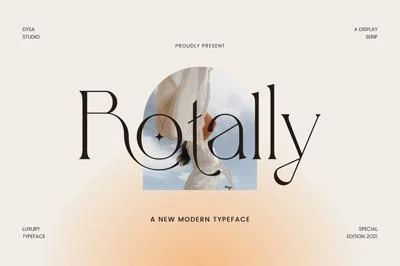
Rotally Font
The Rotally Font is perfect for modern tech company logos, innovative software branding, digital transformation presentations, contemporary web design, startup marketing materials, progressive business communications, cutting-edge product packaging, futuristic user interfaces, and next-generation corporate identity projects.
What makes the Rotally Font so exciting is its dynamic rotational energy that perfectly captures the forward momentum and innovative spirit of modern digital transformation. This sophisticated typeface embodies the cyclical progress and continuous evolution that defines contemporary business innovation, creating an immediate impression of movement and technological advancement. The font's rotational character communicates the dynamic adaptation and progressive thinking that modern businesses need to establish credibility with forward-thinking customers who demand innovative solutions and cutting-edge digital experiences.
The Rotally Font family includes Regular weight featuring complete uppercase and lowercase character sets, comprehensive numerical collections, essential punctuation marks, and dynamic symbols that maintain the progressive aesthetic throughout your innovation-focused and technology-driven design projects.
Progressive businesses and innovation-focused organizations consistently choose Rotally Font for projects that require authentic modern appeal and dynamic technological communication. This exceptional typeface excels in environments where establishing innovation leadership and progressive business thinking is crucial for attracting forward-minded customers and early technology adopters. The font's dynamic character helps communicate the adaptability and continuous improvement that innovation-focused audiences expect from established technology leaders and progressive business organizations.
The distinctive qualities of Rotally Font reflect the evolving landscape of modern business where continuous adaptation, technological integration, and progressive thinking create competitive advantages and sustainable success. Each character demonstrates the balanced motion and controlled progression that characterizes successful innovation-driven companies and technology-forward organizations. The font's proportions and spacing create perfect harmony between dynamic energy and professional stability that contemporary businesses require for effective market positioning and customer engagement.
Contemporary progressive enterprises appreciate how Rotally Font communicates innovation leadership and technological sophistication. Whether designing materials for tech startups, creating branding for digital transformation services, or developing marketing for innovative business solutions, this font delivers the forward-thinking character that distinguishes progressive organizations from traditional conservative companies. The typeface works exceptionally well for businesses emphasizing continuous improvement, technological advancement, and the dynamic appeal of modern business innovation and progressive corporate culture.
The versatility of Rotally Font extends across multiple innovation applications and progressive business marketing initiatives. Technology consultants utilize its dynamic character for transformation strategy presentations and innovation roadmap communications. Digital agencies choose it to communicate their expertise in modern business solutions and cutting-edge technology implementations. Innovation hubs rely on its progressive appearance to attract entrepreneurs seeking dynamic business environments and forward-thinking collaboration opportunities.
Digital innovation platforms benefit from Rotally Font's optimized performance across various progressive applications and modern communication channels. The font maintains its dynamic character whether displayed on innovation websites, mobile business apps, or high-resolution technology presentations. This technical excellence ensures consistent brand presentation across all progressive communication platforms and innovation engagement scenarios.
The psychological impact of Rotally Font resonates with audiences who embrace business transformation and value continuous innovation in their professional partnerships. The typeface serves as a visual promise of dynamic progress and forward momentum that helps progressive businesses build lasting relationships with customers who seek innovative solutions and cutting-edge business approaches. This connection to continuous improvement and technological advancement makes it invaluable for establishing credible innovation-focused brand identities.
Innovation marketing specialists and progressive design professionals recognize Rotally Font as an essential tool for authentic forward-thinking branding. The font captures the essence of business innovation while making progressive thinking accessible to contemporary organizations who want to communicate their commitment to continuous improvement, technological advancement, and the dynamic evolution of modern business practices in today's rapidly changing marketplace.